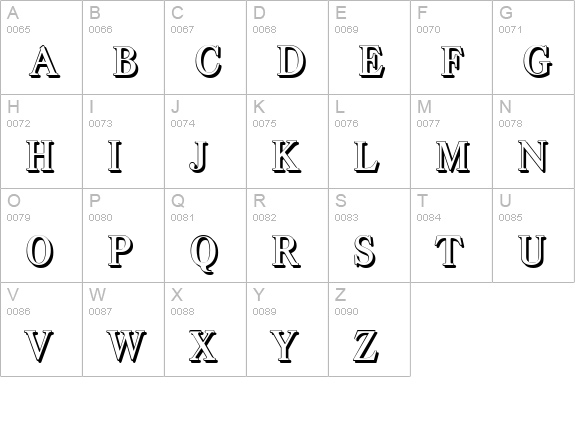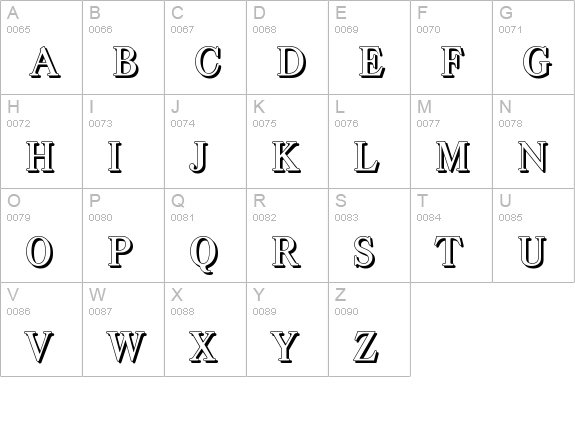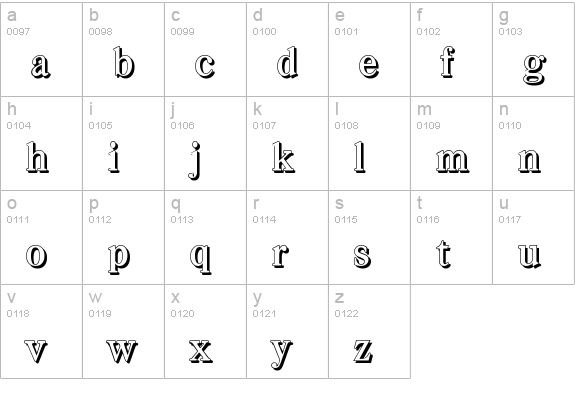
CasadShadow-Medium-Regular is a balanced, medium-weight variant in the CasadShadow typeface family \xE2\x80\x94 well suited to sub-headlines, navigation, and balanced editorial work.
CasadShadow-Medium-Regular is a versatile and stylish font that exudes sophistication and creativity. With its bold and eye-catching design, this font is perfect for a wide range of projects, from branding to social media graphics. The unique shadow effect adds depth and dimension to your text, making it stand out from the crowd. What sets CasadShadow-Medium-Regular apart is that it is available for free download at FontsMarket.com. This means that you can easily access this amazing font and use it in your designs without any cost. Whether you are a professional designer or a hobbyist, CasadShadow-Medium-Regular is a fantastic addition to your font collection. Embrace the elegance and creativity of this font today and elevate your designs to the next level.